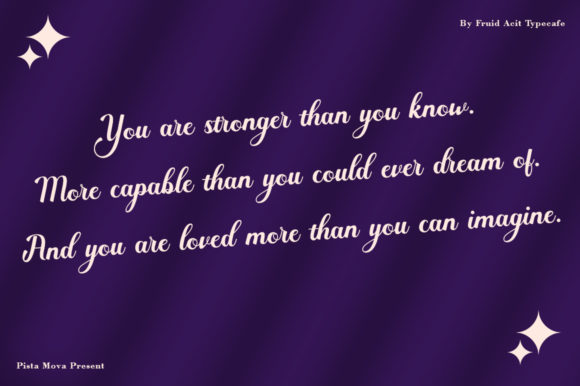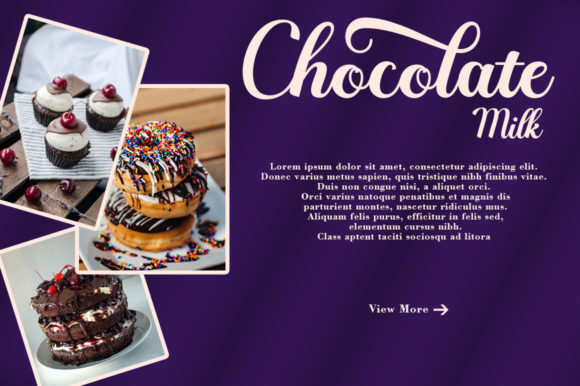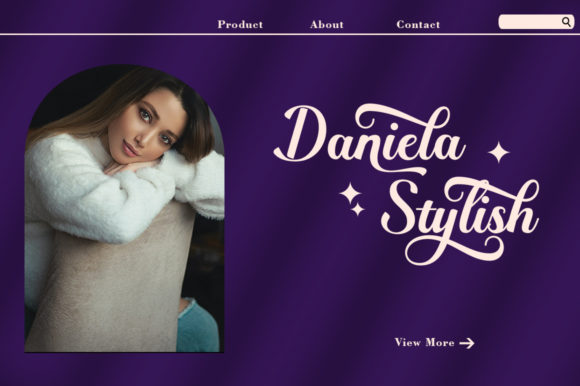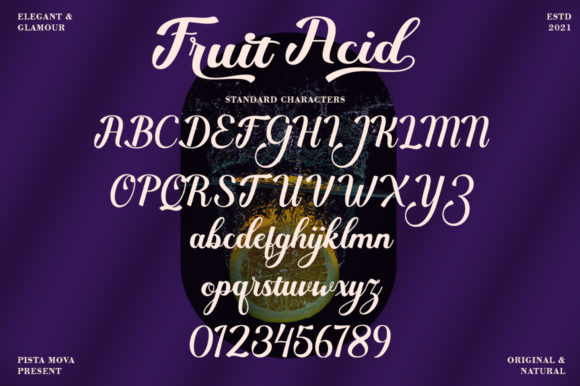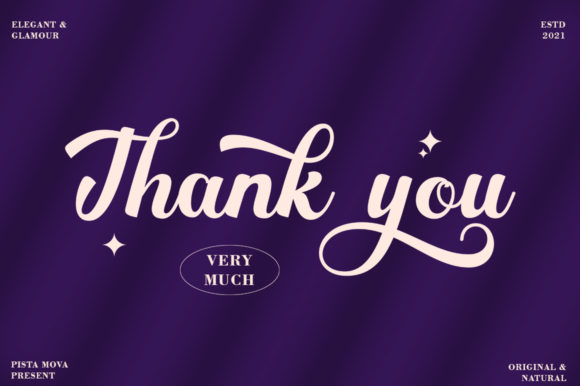
Fruit Acid Font: Elevate Your Designs with a Touch of Luxury
Are you looking for a font that can add a touch of elegance and sophistication to your design projects? Look no further than the Fruit Acid Font. This beautiful and flowing handwritten font is sure to make a stunning impact on any design project you wish to create. With its unique feel and luxurious spark, Fruit Acid Font is the perfect choice for designers and crafters who want to take their work to the next level.
What Makes Fruit Acid Font So Special?
Fruit Acid Font is a one-of-a-kind font that boasts a distinctive and elegant style. Its flowing lines and curves create a beautiful, handwritten look that is sure to capture the attention of your audience. Whether you’re working on a branding project, a website design, or a craft project, Fruit Acid Font is the perfect choice for adding a touch of luxury and sophistication.
Fruit Acid Font is a versatile font that is perfect for a wide range of design projects. Whether you’re a professional designer or a crafter working on a hobby project, this font is sure to inspire your creativity. Use it to create stunning branding materials, such as logos and business cards, or to add a touch of elegance to your website design. You can also use Fruit Acid Font to create beautiful craft projects, such as handmade cards, invitations, and scrapbooking pages.
Key Features of Fruit Acid Font
- Beautiful and flowing handwritten font with a unique feel
- Luxurious spark perfect for adding a touch of elegance to your designs
- Perfect for a wide range of design projects, including branding, website design, and craft projects
Tips and Tricks for Getting the Most Out of Fruit Acid Font
Here are a few tips and tricks for getting the most out of Fruit Acid Font:
- Experiment with different font sizes and colors to create visual interest
- Use the font’s glyphs and ligatures to add a touch of elegance to your designs
- Combine Fruit Acid Font with other design elements, such as images and graphics, to create stunning visual effects
- Use the font to create a consistent brand identity across multiple design projects
In conclusion, Fruit Acid Font is a beautiful and luxurious handwritten font that is perfect for designers and crafters who want to add a touch of elegance to their designs. With its unique feel, stunning impact, and PUA encoding, this font is sure to take your design projects to the next level. Whether you’re working on a branding project, a website design, or a craft project, Fruit Acid Font is the perfect choice for adding a touch of luxury and sophistication.